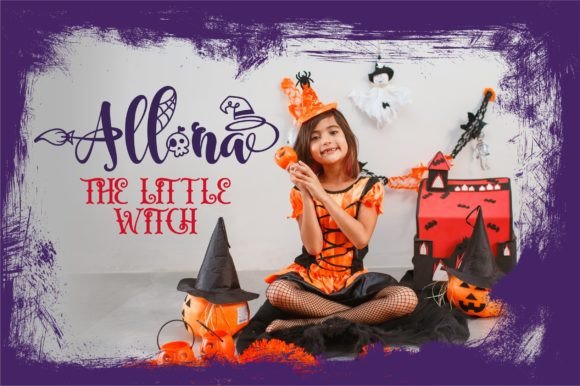
Halloween Font
Halloween is a fun duo font (handwritten and serif) with a scary and cute decorative Halloween theme. Masterfully designed to become a true favorite, this font has the potential to bring each of your creative ideas to the highest level!.